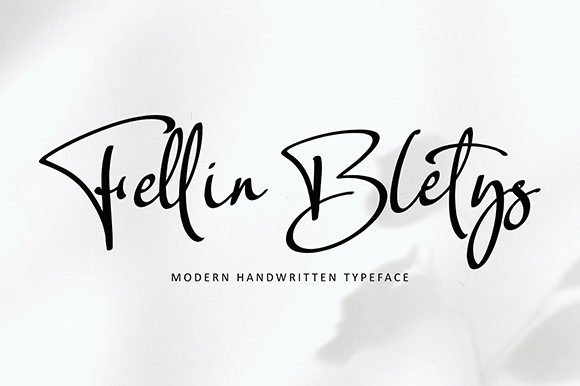
When Handwriting Meets Design Magic
Have you ever been scribbling away in a notebook, lost in a world of creativity, when suddenly a font idea strikes you? For designers, those ‘aha’ moments can be a game-changer. One such moment led to the creation of the beautiful Fellin Blettys Font, a slim and relaxed handwritten font that brings a personal touch to any design.
This charming font is perfect for adding a handwritten feel to wedding invitations, thank you cards, quotes, and business cards. Its versatility makes it a valuable asset for designers looking to elevate their work. With PUA encoding, accessing all the glyphs and swashes is a breeze, giving designers the freedom to get creative.
Fellin Blettys Font Key Features
- Unique Characteristics: Distinctive, hand-drawn style with subtle imperfections, giving it a human touch
- Font Style: Script, Casual, with a touch of elegance and sophistication
Fellin Blettys Font Review
I recently had the chance to work with Fellin Blettys Font, and I must say it’s a unique and interesting addition to any design project. Here are my thoughts on what works well and what doesn’t.
- The font’s playful, whimsical feel is perfect for projects that require a touch of personality.
- The varying line widths and letterforms add a sense of movement and energy to text.
- The font is highly customizable, making it easy to adjust to fit your project’s specific needs.
- The font can be a bit overwhelming in larger text sizes, so use it sparingly.
- The irregular letterforms can make it difficult to read for some users, particularly in body text.
- The font’s unique style may not be suitable for formal or professional projects.
Fellin Blettys Font is a fun and creative font that’s perfect for projects that need a touch of personality. While it has its limitations, it’s a great addition to any designer’s toolkit. I’d recommend using it for headings, titles, or other display text where its unique style can shine.
To get the most out of Fellin Blettys Font, experiment with different font sizes and styles to create visually appealing designs. Use this font for headings and titles to add a touch of elegance and sophistication to your projects.
Fellin Blettys Font is ideal for:
1. Creative headings and titles
2. Branding and logo design
Alternatives to “Fellin Blettys Font” for Designers
Great Vibes is a modern script font designed by Handmade Fonts. It’s ideal for use in logos, branding, and creative projects where a stylish, handwritten feel is required. Great Vibes has a similar flowing and organic feel to Fellin Blettys, but with a more refined and elegant touch.
Comparison: Great Vibes has a more polished and sophisticated look compared to Fellin Blettys, making it suitable for high-end branding and creative projects.
Alex Brush is a calligraphic script font designed by Laura Worthington. It’s perfect for use in invitations, wedding stationery, and other creative projects where a touch of elegance is required. Alex Brush has a similar flowing feel to Fellin Blettys, but with a more refined and delicate touch.
Comparison: Alex Brush has a more refined and delicate look compared to Fellin Blettys, making it suitable for projects that require a touch of sophistication and elegance.